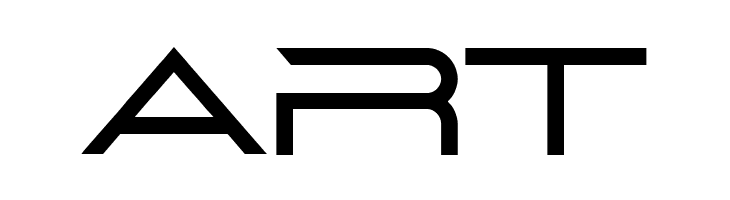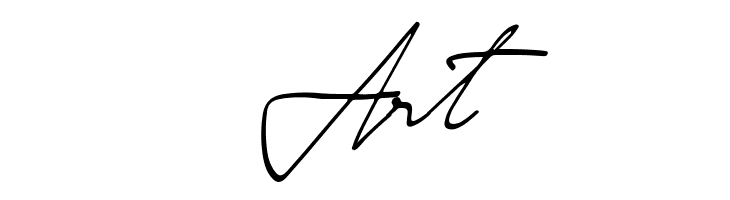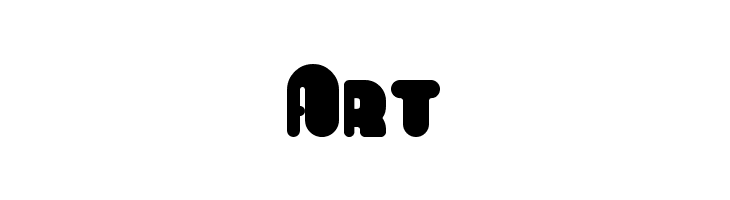
• Santaray
A bold, brush-style script font with high contrast and dynamic strokes.
• Satanyc Demoniac St
( Fonts by Southype )
A gothic, decorative font with sharp, thorn-like edges and a dramatic style.
• Saturday Night Italic
A lively, cursive script font with elegant, flowing connections.
• Saturno
A bold, medieval-inspired serif font with sharp, angular details.
• Saveloy
A bold, rounded, and modern font with a playful geometric style.
• Saveloy
( Fonts by Chequered Ink )
A bold, playful font with rounded, bubble-like characters.
• Sawah Personal Use
A modern, geometric font with a futuristic and sleek design.
• Saylina
A playful and elegant script font with decorative swirls and smooth flow.
• ScareCamp
A bold, jagged font with an eerie, horror-themed design.
• Scary Dolls
( Fonts by Masa Aska Sanurumi )
A horror-themed font with dripping, eerie characters.